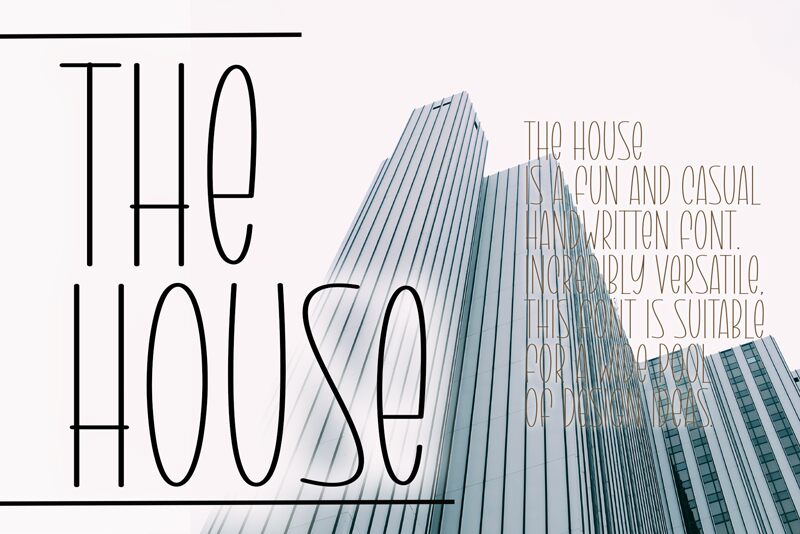
The House font is a free handwritten masterpiece by creatype designer, featuring a unique blend of casual and quirky elements. Its minimalistic and modern feel offers a friendly, versatile style that is both informal and approachable. With its warm and inviting appearance, The House font brings a personal touch to any project, embodying creativity and individuality.
The House font is perfect for a wide range of applications, such as personal branding, social media posts, blog headers, greeting cards and wedding invitations, artistic projects, menu designs, or any project asking for a creative touch. For commercial use, purchase a license or consider donating to the author.
This font retains a classy calligraphic influence while feeling contemporary and fresh. Its versatility will inspire a wide range of creative ideas, from letterheads and titles to stationery designs.